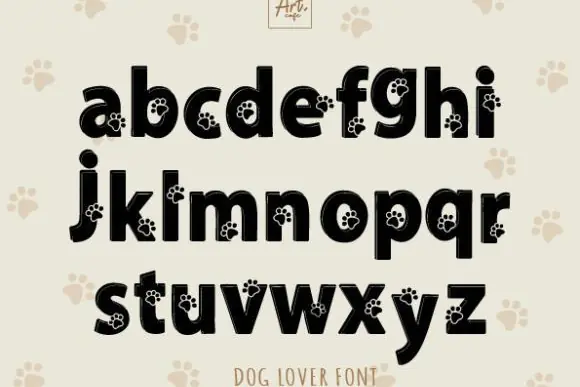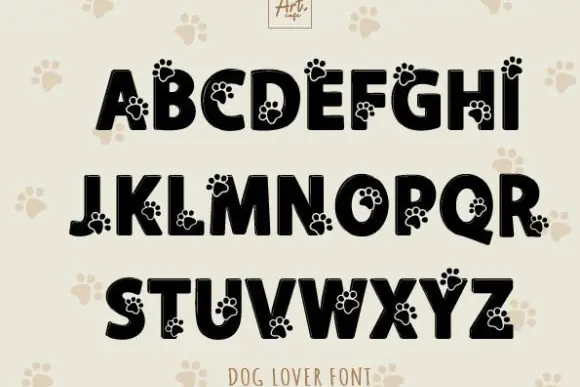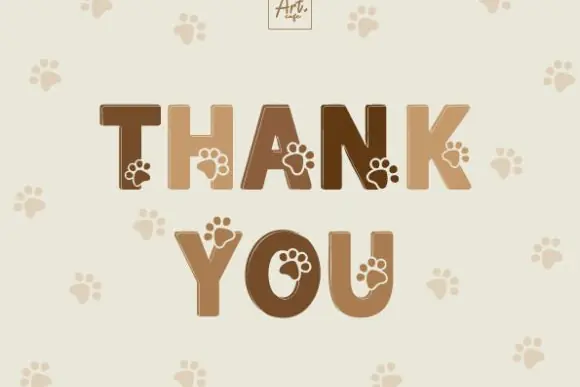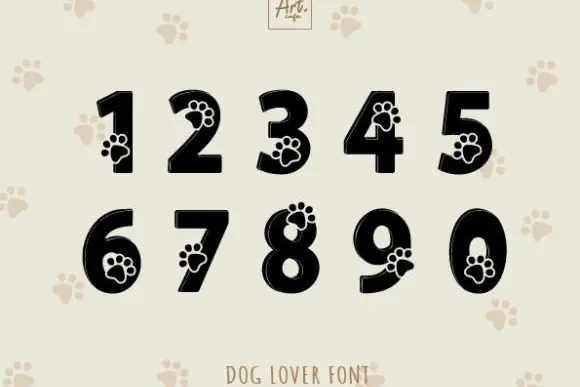
Dog Lover Font | Cute Bold Display Typeface for Dog Lovers, Kids Designs, T-Shirts, Mugs, Posters, Stickers, Planners, Home Decor & Pet-Themed Projects
Create adorable, playful, and pet-friendly designs with Dog Lover Font, a cute bold display typeface made especially for dog lovers, kids’ projects, and fun creative designs. With its cheerful style and strong readable letters, this font is perfect for adding charm, warmth, and personality to pet-themed artwork and family-friendly products.
Dog Lover Font is ideal for designers, crafters, teachers, pet shop owners, print-on-demand sellers, stationery creators, and small business owners who want a fun font for dog-themed designs. It works beautifully for posters, t-shirts, mugs, kids’ projects, planners, stickers, home decor, wall art, greeting cards, invitations, social media graphics, labels, packaging, and printable crafts.
This font supports English language characters for display typography, making it easy to use for cute titles, pet quotes, dog mom designs, puppy-themed graphics, classroom materials, and personalized gift products.
Whether you are creating a dog lover t-shirt, pet adoption poster, puppy birthday invitation, cute mug design, planner sticker, nursery wall art, or handmade craft product, Dog Lover Font adds a friendly and joyful touch to your project.
Key Style Features
• Cute bold display font
• Perfect for dog lovers and kids
• Supports English language characters
• Fun and playful visual style
• Great for posters, shirts, mugs, and stickers
• Suitable for home decor and planner designs
• Easy to use for pet-themed typography
• Ideal for digital and printable projects